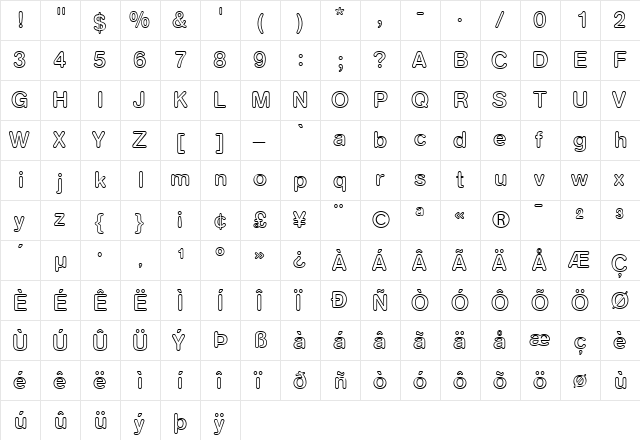
Design Context for AGRoundedMediumOutline-Book Typeface
AGRoundedMediumOutline-Book brings ornamental detail and strong personality to headlines and identities, where visual impact matters more than quiet functionality.
Font Pairing: Pair with a clean neutral sans-serif for body copy to let AGRoundedMediumOutline-Book's character lead without overwhelming the composition.
Pro Tip: Treat AGRoundedMediumOutline-Book as the centrepiece of your typographic hierarchy. One strong heading set in a decorative face can carry an entire layout.